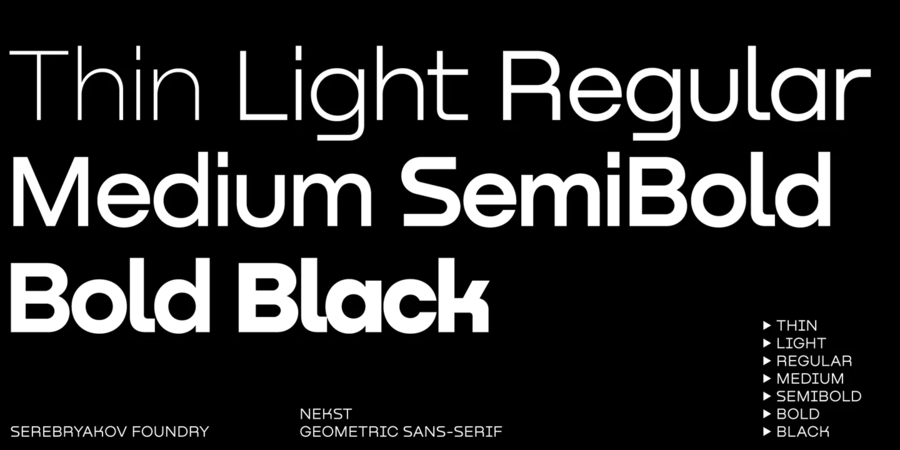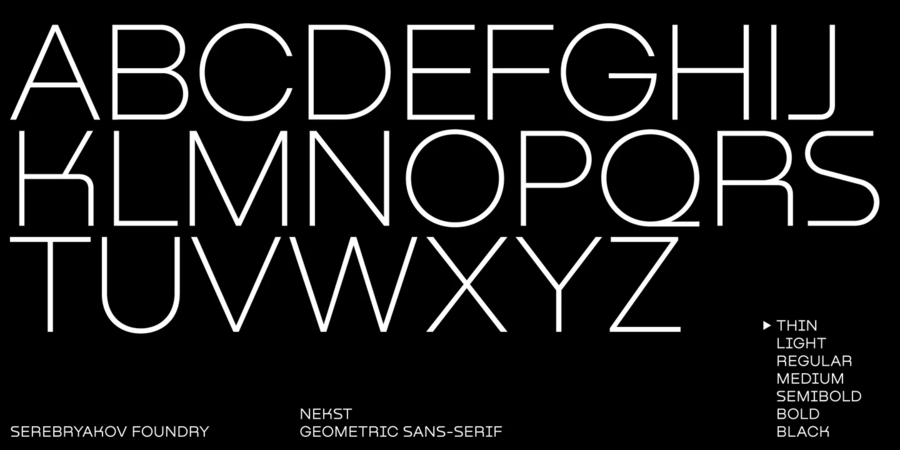
Nekst (8 fonts)
About NekstNekst is geometric sans-serif. So it can only seem at first glance. Non-standard forms of some letters, behave unexpectedly and eccentric in a text line. These forms add notes of old grotesques and futuristic aesthetics to the modern-nordic image. Nekst font family includes seven weights supporting Cyrillic and extended Latin. The typeface was designed by Denis Serebryakov in 2020.
Associations for font family NekstTypeface personality and character:
elementary, minimalistic, accurate, flat, static, logical, laconic, stable, automatic, artificial, cold, engineering, urban, schematic, clean, modern, thin, wire, easy, chilly, clear, transparent, fashionable, neon, solid, reliable, self-assured, steel, machine, space, futuristic, high-quality, simple, urbanistic, crisp, technical, railway, serious, convincing, iron, industrial, technogenic, heavy, authoritative, formidable, manly, strong, important, monumental, motivating, severe, tough, ambitious, practical, robust, strict, reputable, independent, responsible, good quality, architectural, sportive, rude, loud, rectangular, rigid, cutting, lasting, close-fitting, powerful, durable
scheme, design, architecture, coworking, city, electronics, sci-fi, innovations, gadget, device, game, IT specialist, IT, technology, urban studies, transport, space, sky, interior, constructor, chemistry, mathematics, code, engineer, automation, science, furniture, equipment, Internet, mobile communications, car, railway, water, mechanical engineering, factory, machine tool, tool, building, industry, repairs, footwear, metallurgy, fitness equipment, building materials, stock, port, power station, energy industry, depot, helmet, uniform, railway carriage, aviation, aircraft, construction, truck, motor, engine, steel-maker, press, safe, security, protection, robot, architect, Lockdown, blockbuster, thriller, action, fuel, sport, spaceship, clothes, oil, cybersport, SUV, trucker, Delivery Typeface associated with age: